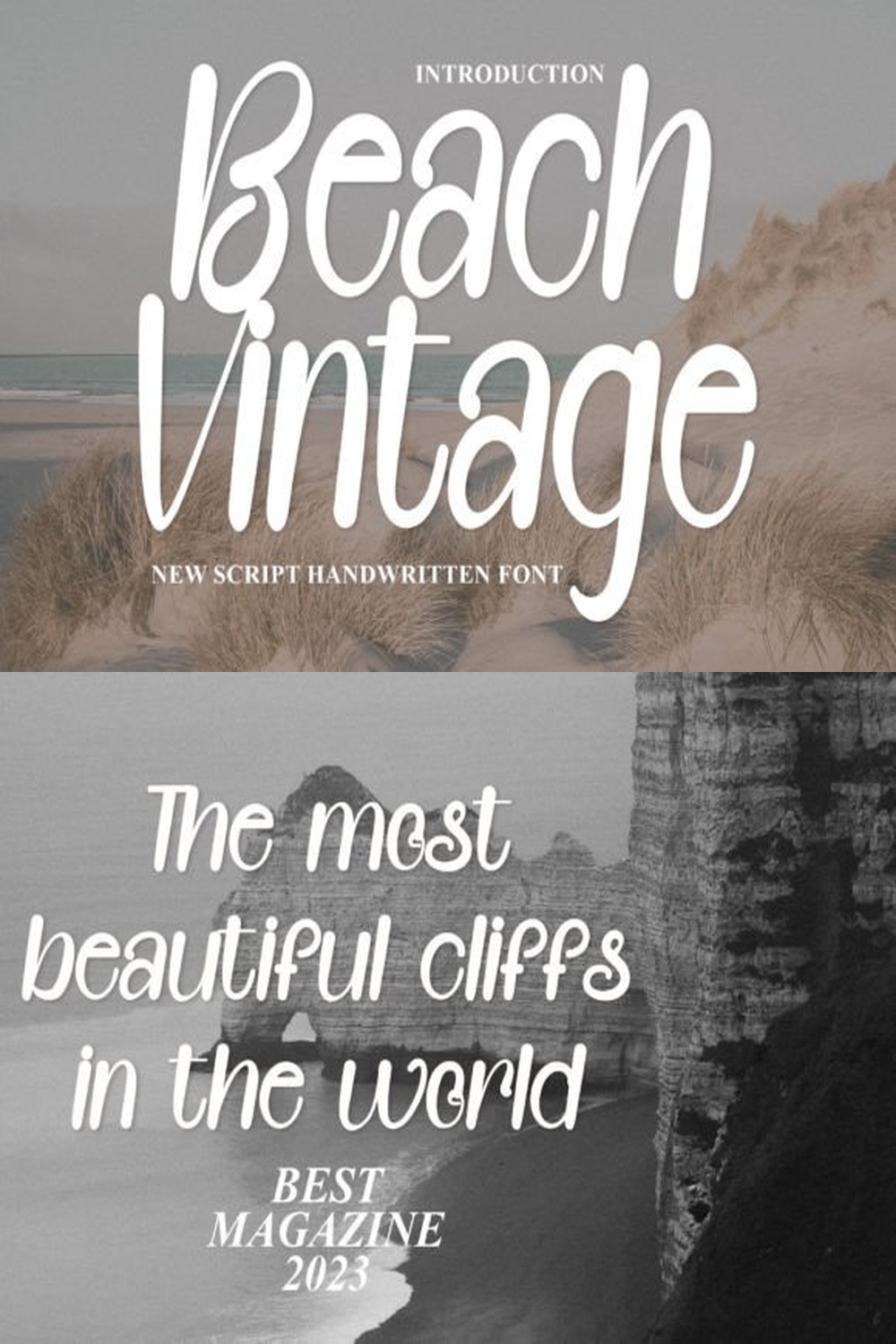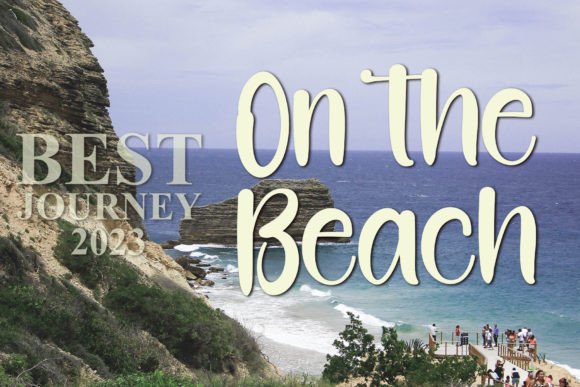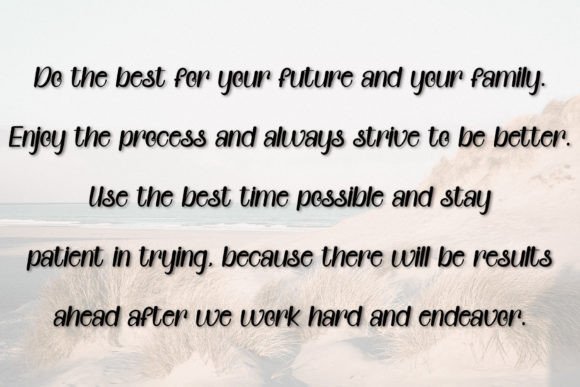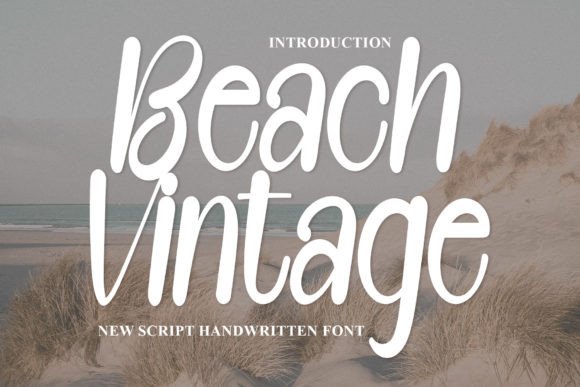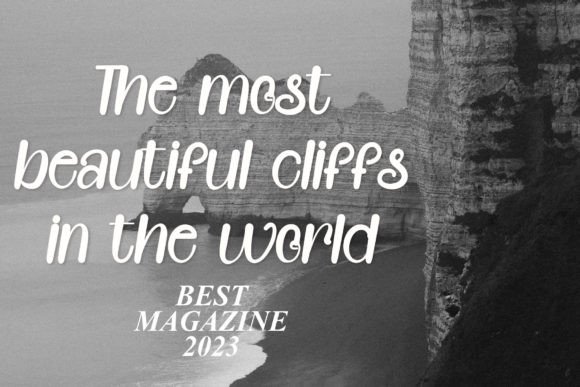
Beach Vintage Font
About the Beach Vintage Font
Elevate your designs with Beach Vintage Font, a font that combines sophistication with readability. Beach Vintage is a cool handwritten font with a modern vibe and spotless form, inspired by classic calligraphy. Not too thin and not too thick, balanced and varied, this font was designed to enhance the beauty of your projects.